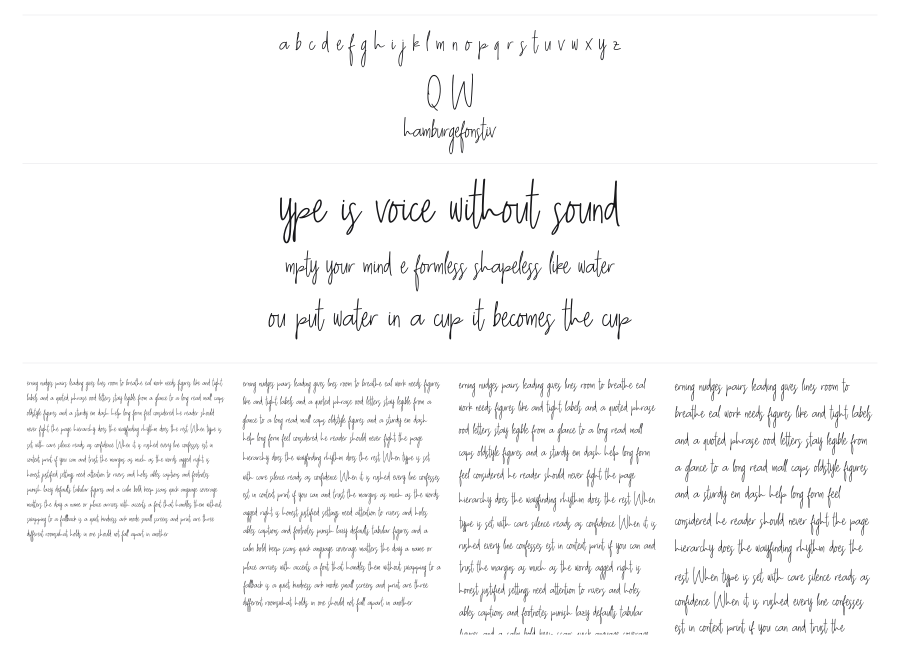
Queen Waffle
Queen Waffle is a lightweight monoline script from Konstantine Studio with the easy, flowing rhythm of an actual signature. The thin strokes stay consistent throughout, giving it a feminine elegance that never feels stiff or overly formal. It works naturally for branding, invitations, social media graphics, and personal logos where you want something that reads as effortlessly graceful.